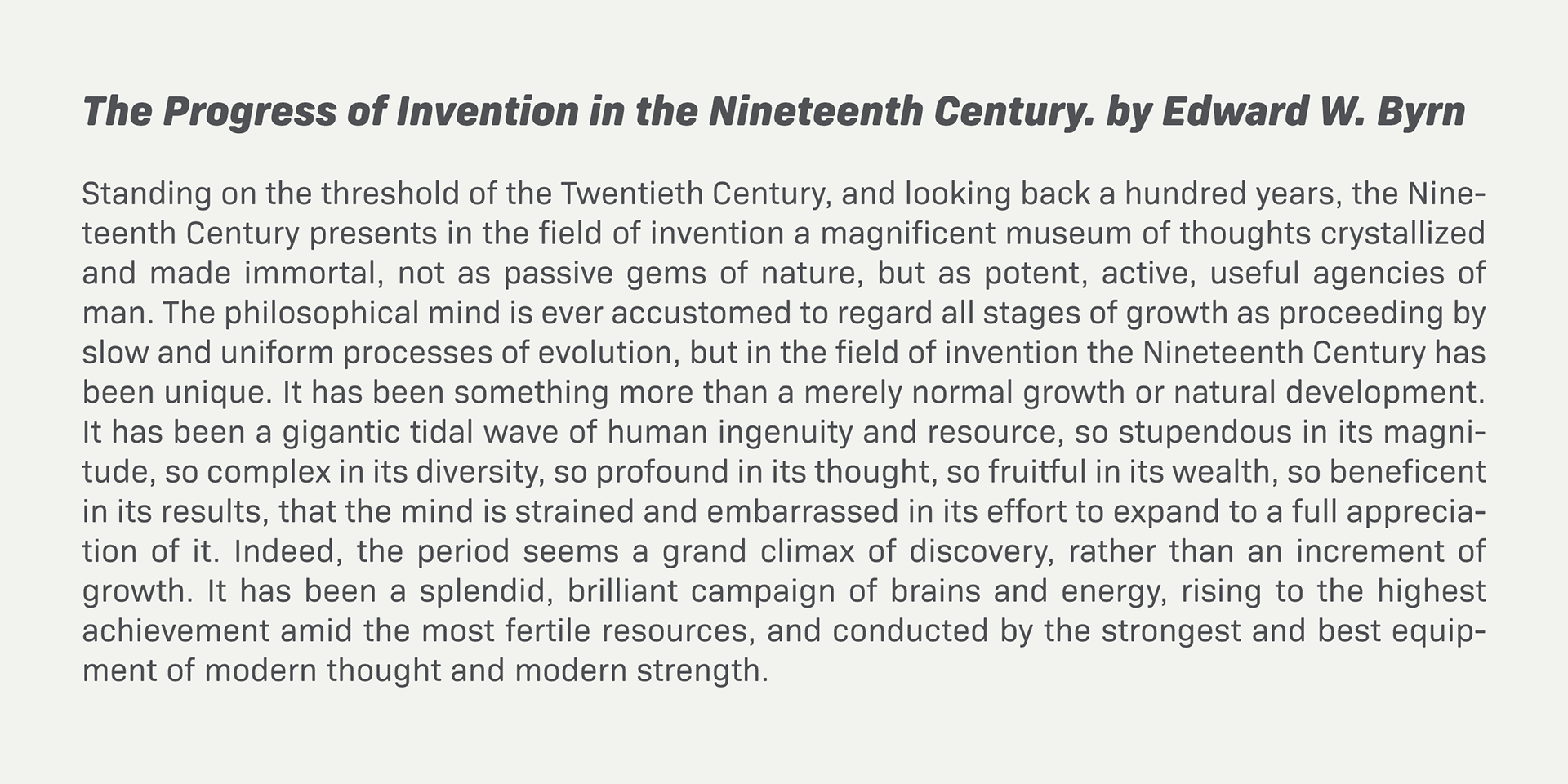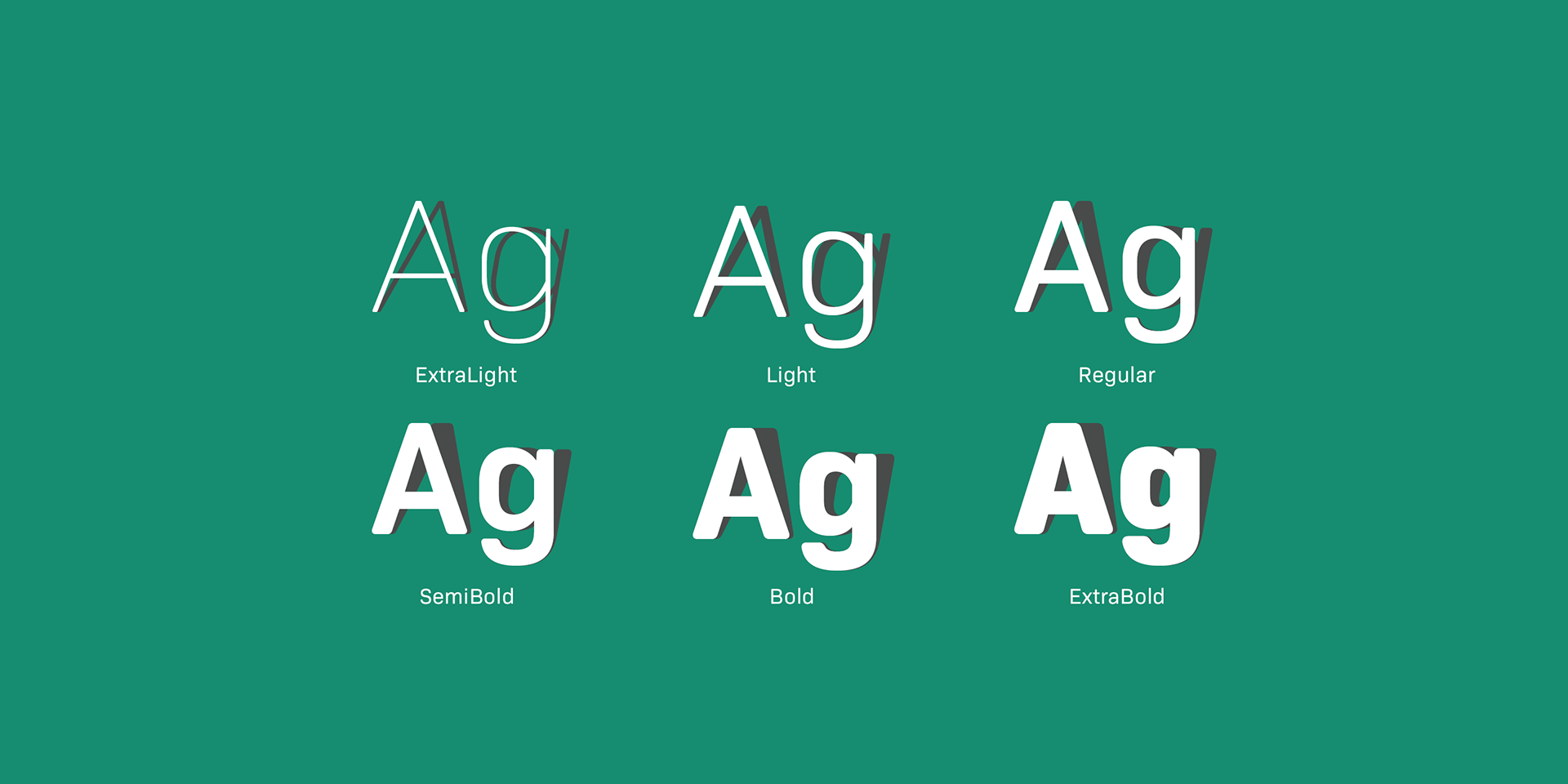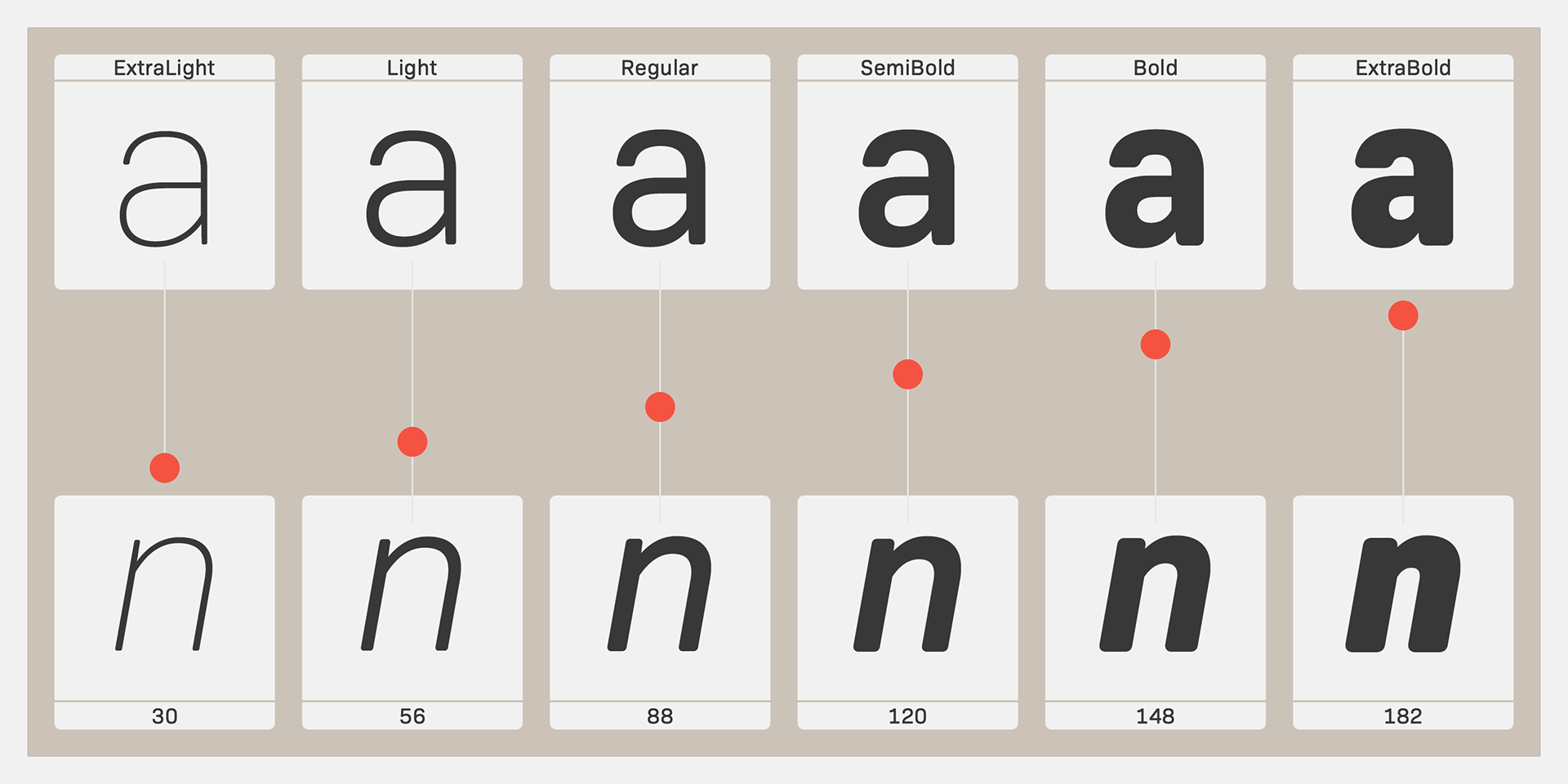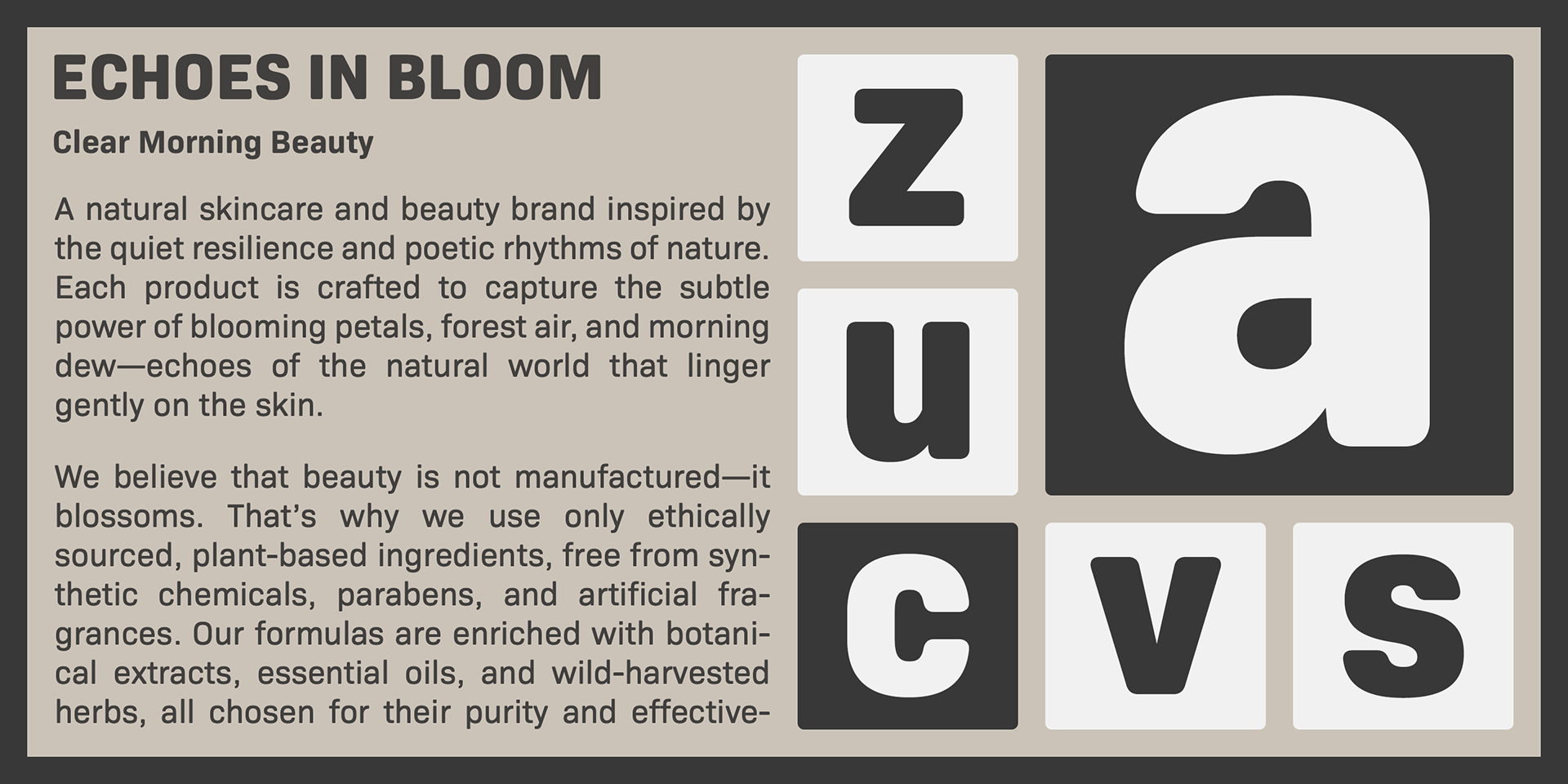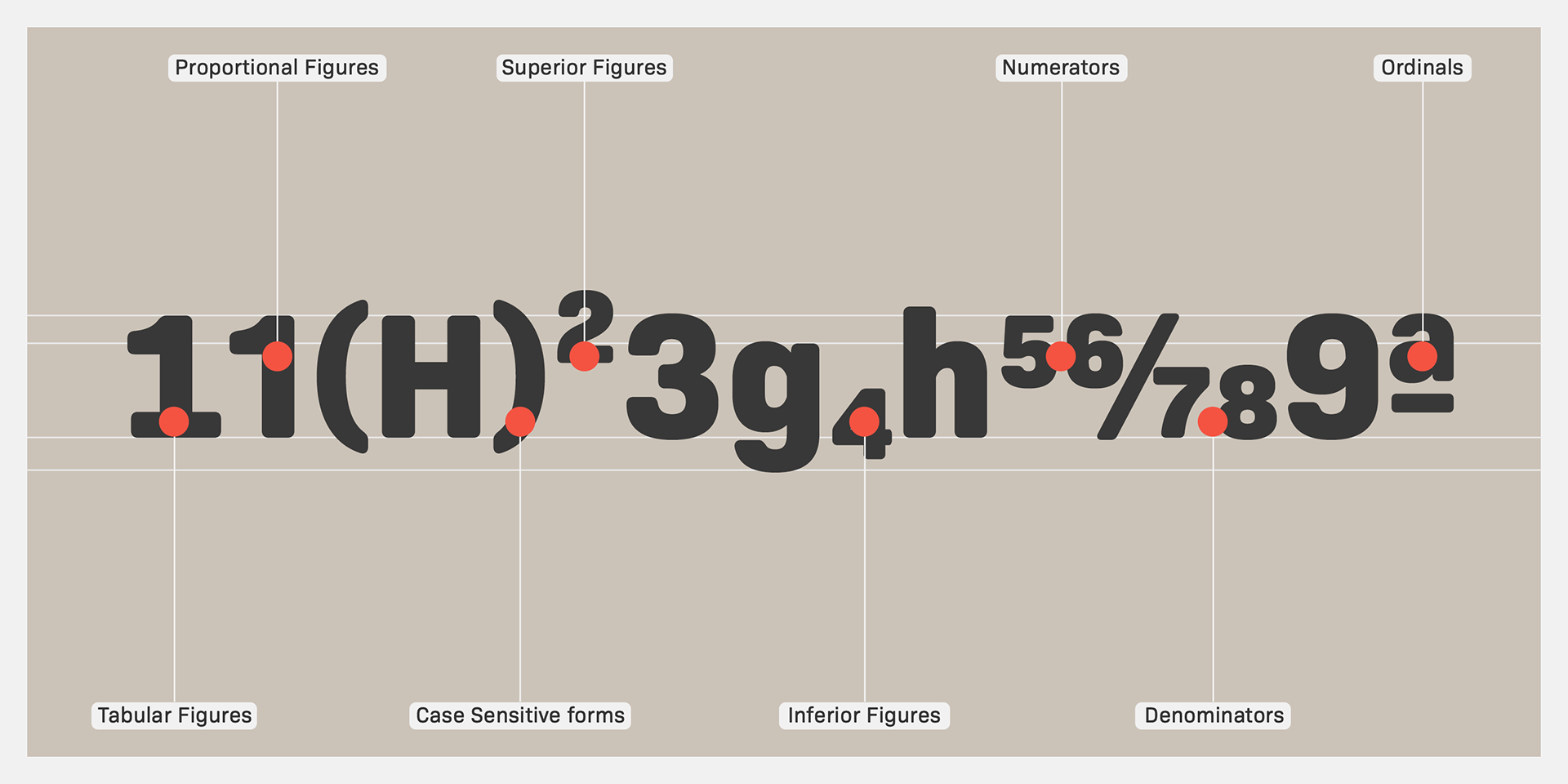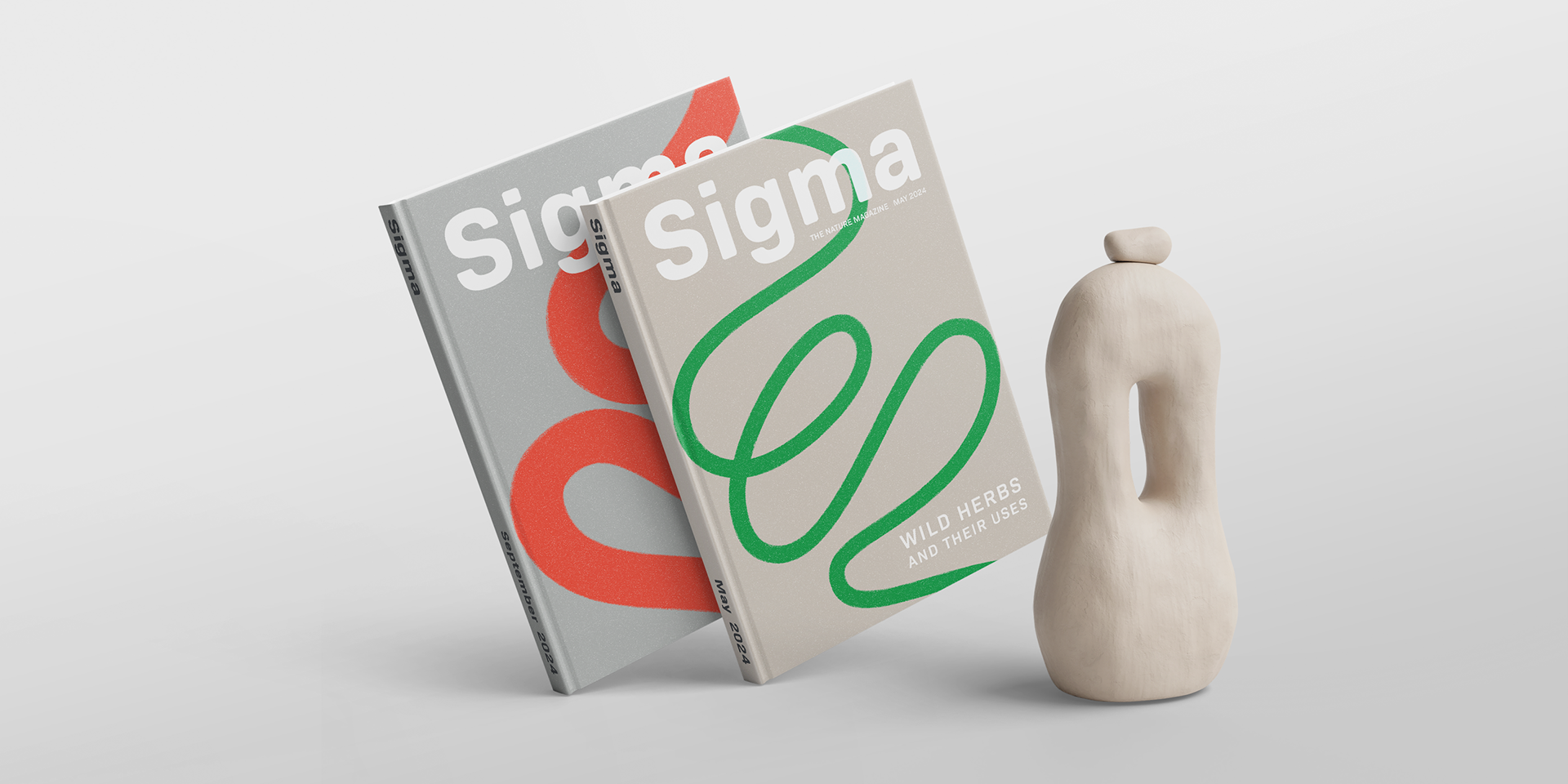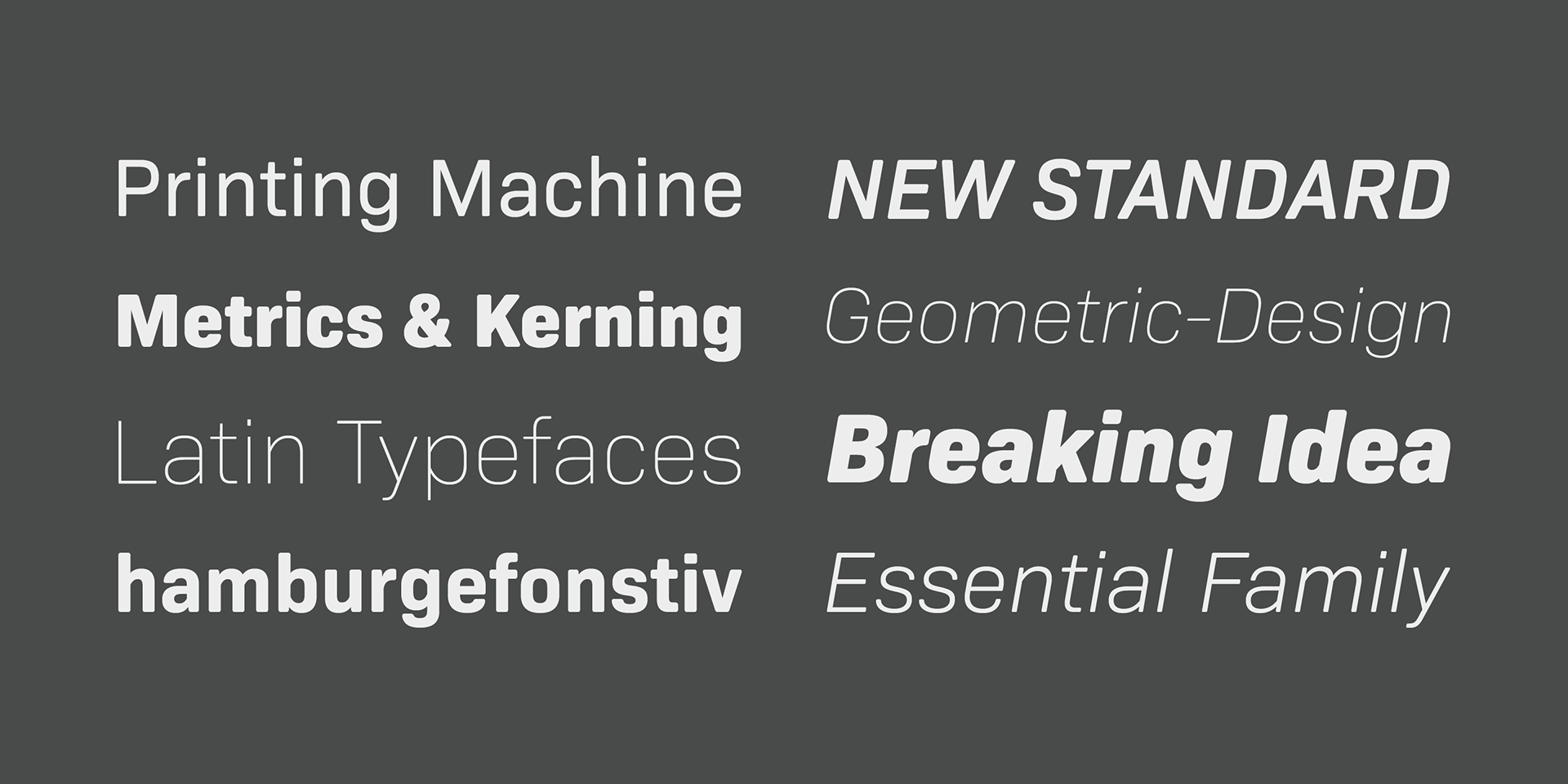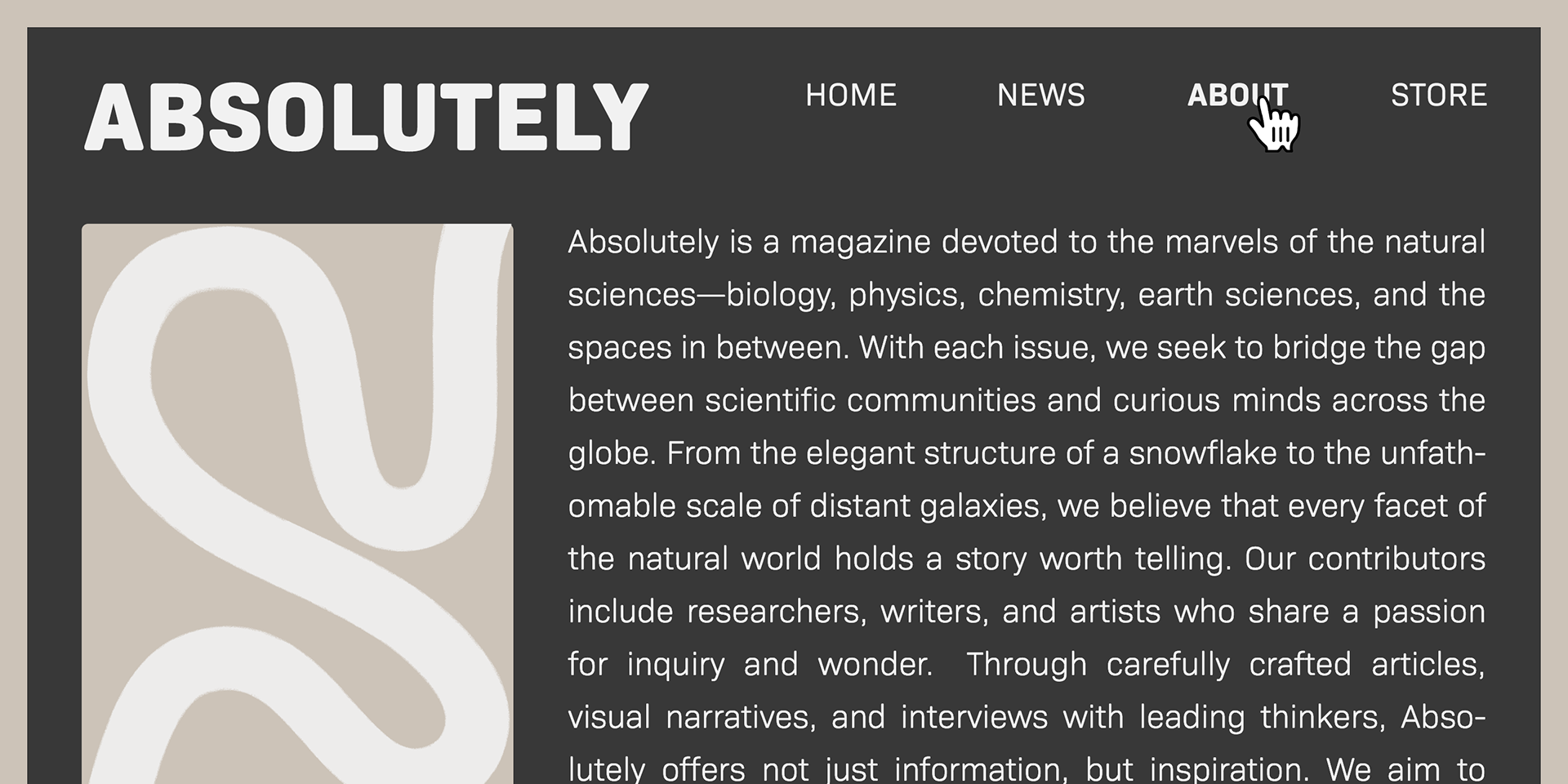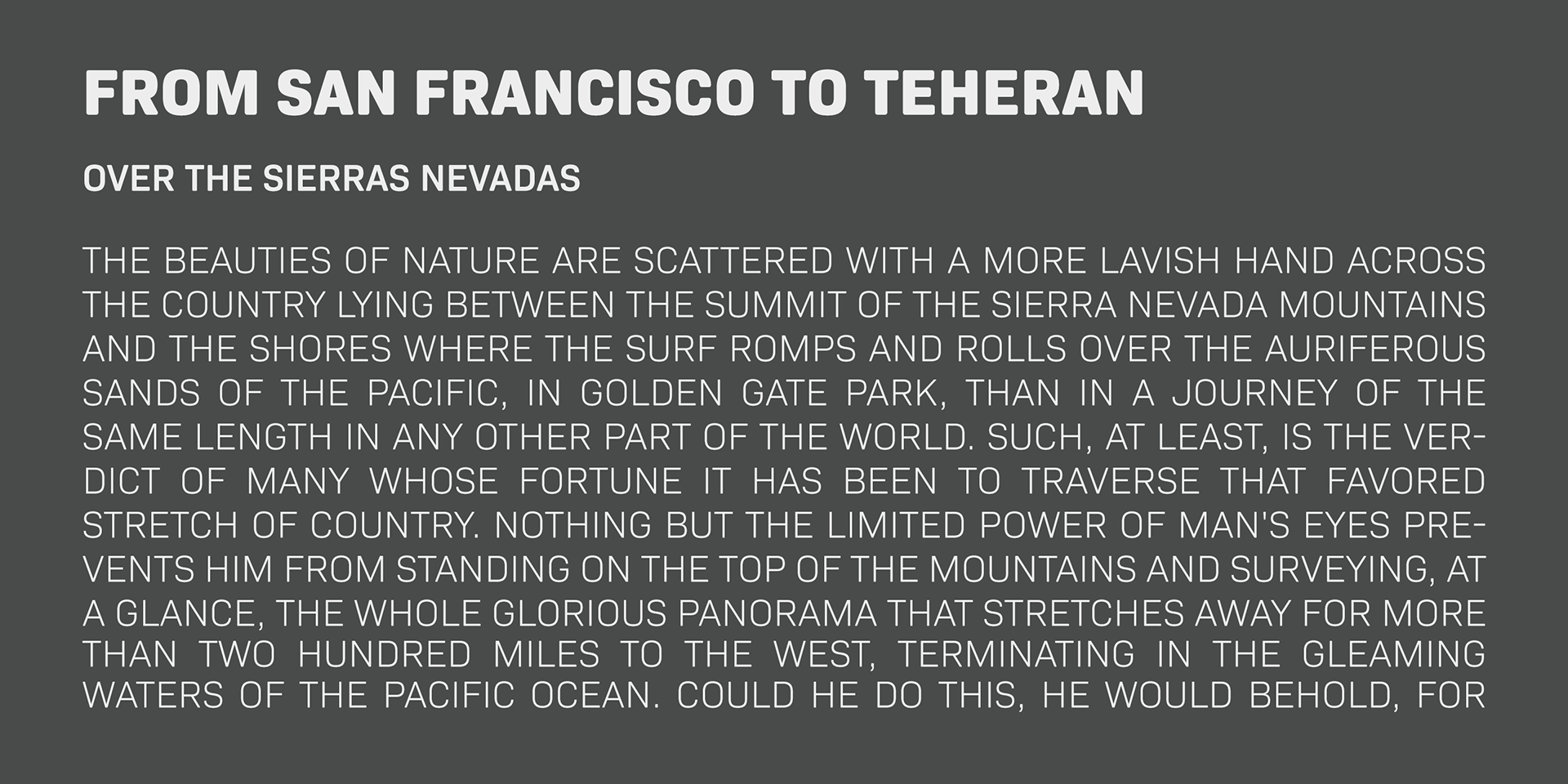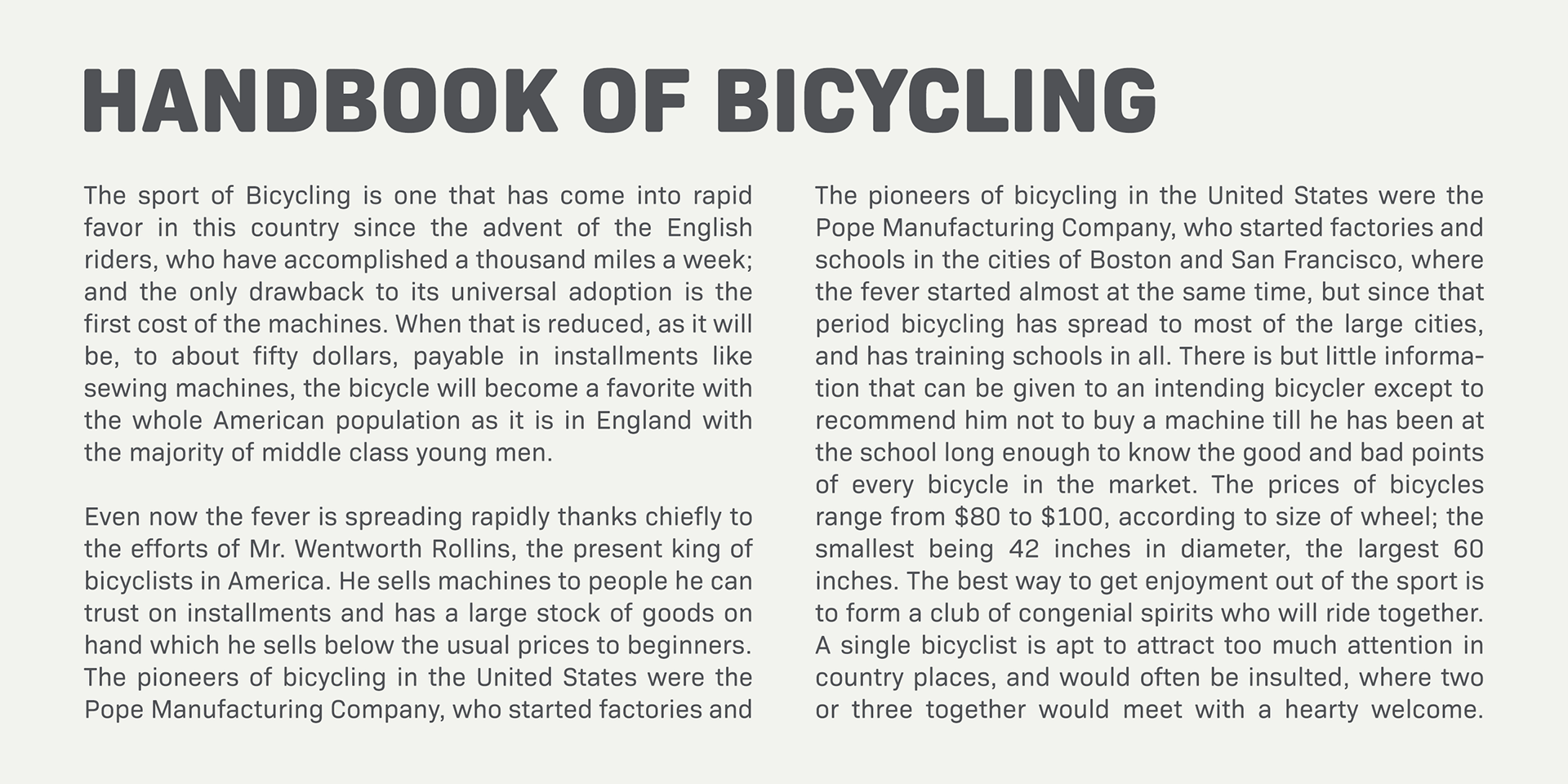
Bio Sans Soft
Bio Sans Soft is a super-neutral sans-serif type family designed by Ryoichi Tsunekawa, tailored for text and all-purpose design.
The family includes 6 weights, from ExtraLight to ExtraBold, each with matching italics, offering versatile options for both print and digital use.
Built on the same core philosophy as the widely popular Bebas Neue, Bio Sans Soft embraces a design ethos that is neutral, natural, minimal, harmless, super-flat, transparent, and above all, legible.
The typeface features a geometrically constructed skeleton softened with subtle, rounded details for a friendly, approachable appearance.
Its large x-height ensures excellent readability, even at small sizes and on high-density screens, while the refined letterforms provide a sense of clarity, unity, and universality—ideal for any design context.
Bio Sans Soft supports almost all Latin-based languages, including Western, Central, and South Eastern European languages, as well as Afrikaans.
It also includes advanced OpenType features such as:
- Proportional, superior, and inferior figures
- Denominators, numerators, fractions
- Ordinals and case-sensitive forms
Whether used for body text, UI, editorial, or branding, Bio Sans Soft is a reliable, modern sans-serif designed for effortless communication.